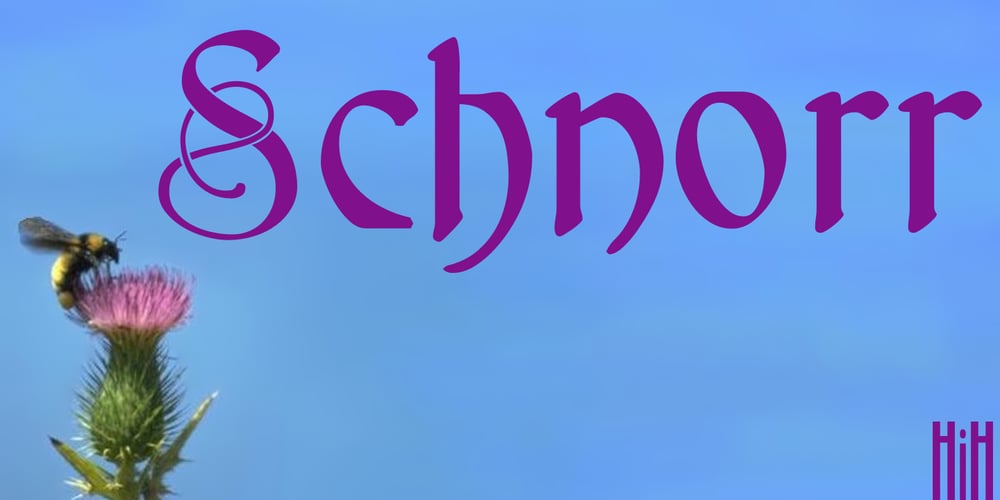
Schnorr Font Family was designed by Peter Schnorr and published by HiH. Schnorr contains 3 styles and family package options. Schnorr is a family of three fonts drawn by a German designer, Peter Schnorr. Schnorr Dekorativ is one of the less frequently seen of the alphabets he designed and one of the few for which he designed as lower case. Like many of the alphabets of the period, Schnorr Dekorativ is a delicate design. To provide a little more presence, we have added a DEMIBOLD version. Included in both Schnorr Dekorativ and Schnorr Demibold are an ornament of Schnorr’s design, seven T-ligatures and an alternate lower case t. 123=Ta, 125=Te, 135=Th, 137=Ornament, 167=Ti, 172=To, 188=Tr, 190=Tu and 177=alternate t. Schnorr’s design for the lower case t is unusual and not readily recognized. The alternate may be used to improve readability. Schnorr Initialen was designed as an upper case only design and as such is quite popular. It is often seen under the name of Odessa. Our font is a fresh scan and is paired with our Schnorr Demibold to provide a compatible lower case, along with all the rest of the auxiliary characters. Schnorr Initialen includes all the extras supplied with Schnorr Dekorativ and Schnorr Demibold: 123=Ta, 125=Te, 135=Th, 137=Ornament, 167=Ti, 172=To, 188=Tr, 190=Tu and 177=alternate t. In addition, Schnorr Initialen also includes an alternate uppercase I (172) and five lotus ornaments (123, 125, 167, 188 and 190).